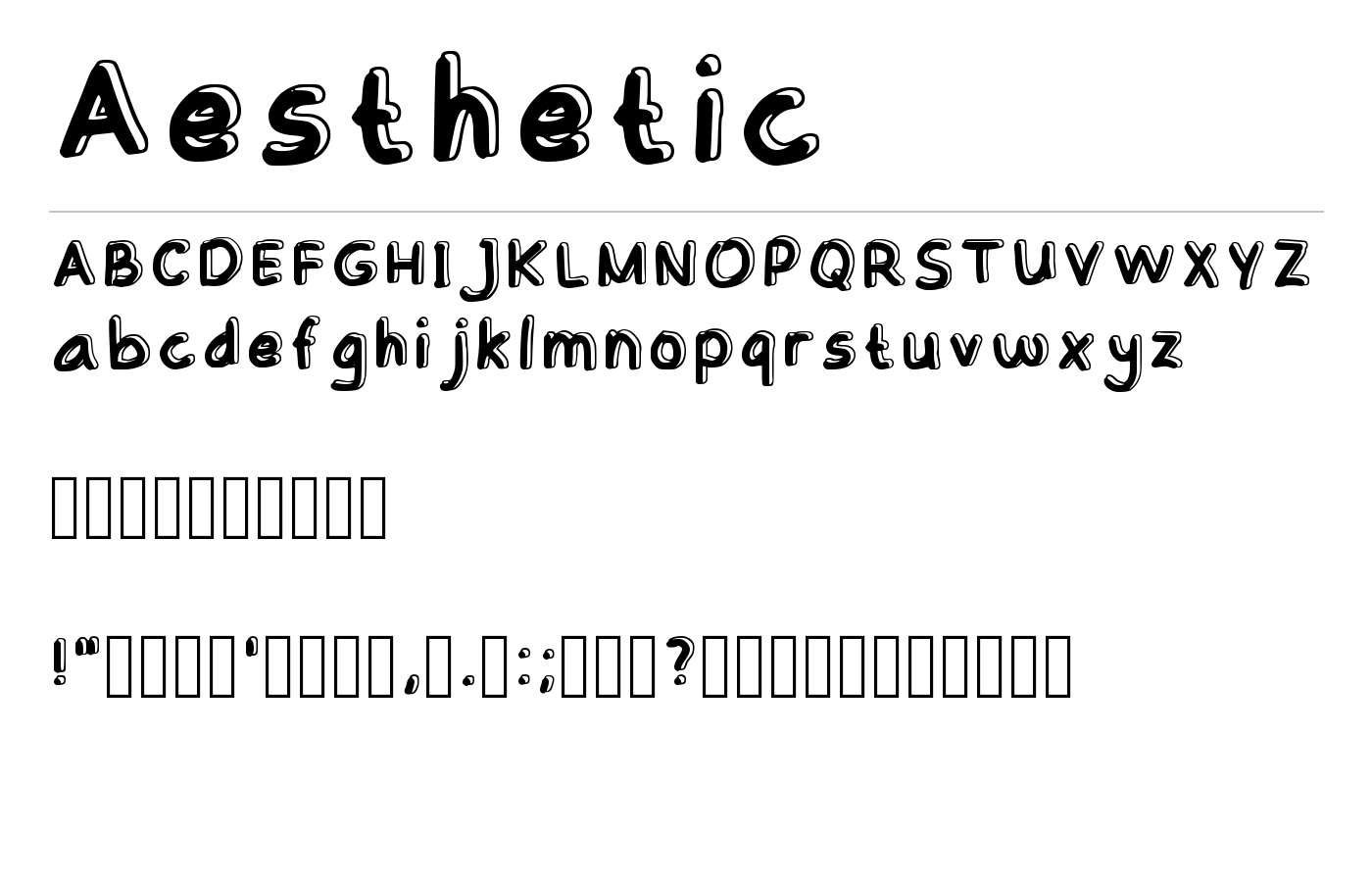
Aesthetic Font is a playful and quirky sans serif typeface featuring rounded, irregular shapes that create a hand-drawn, casual vibe. Its moderate weight and tall x-height with whimsical, bubble-like counters make it ideal for fun, creative projects such as children's books, posters, or informal branding where a lively and friendly tone is desired. This font works well in headlines or display uses, bringing an inviting and artistic feel to any design.
Aesthetic Font
About Aesthetic Font